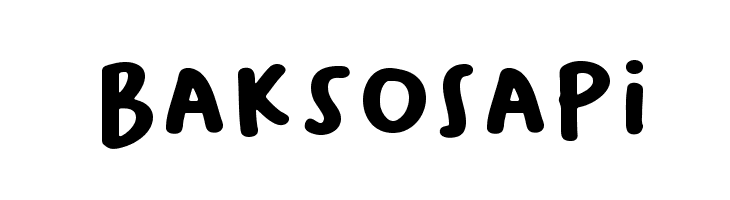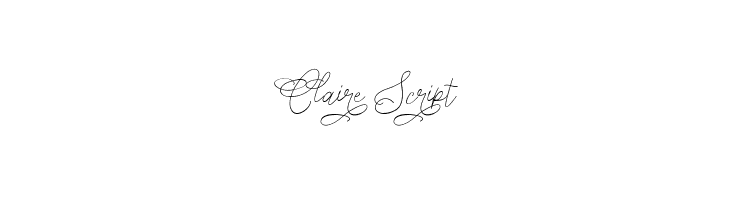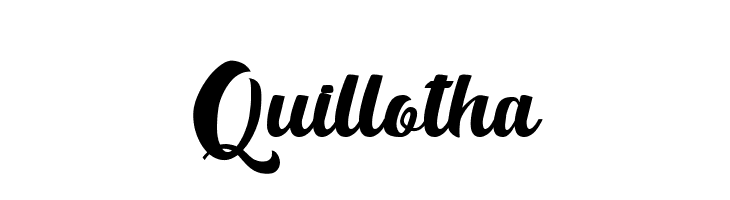
( Delafa Design - fontbundles.net/delafa )
A lively, handwritten script font with a playful and dynamic style.
( Flamde Studio - Nur Solikh - creativemarket.com/flamde/ )
A bold and expressive script font with flowing, connected letterforms and high contrast.
( Flamde Studio - Nur Solikh - creativemarket.com/flamde/ )
A bold, expressive script font with flowing, connected letterforms.
( Héctor Castillo )
A playful, casual handwritten font with rounded, slightly irregular letterforms.
( James Barnardo )
A bold, decorative font with a vintage 1920s flair.
( K-Type - Keith Bates - www.k-type.com/ )
A pixelated, grid-based font with a retro digital display aesthetic.
( Locomotype - Arwan Sutanto - www.locomotype.com )
A playful, bold font with a hand-drawn, rounded style.
( Mas Anis Studio - Naufal Anis - creativemarket.com/naufalans?u=naufalans )
An elegant, flowing script font with delicate, calligraphic lines.
( Pizzadude - Jakob Fischer - www.pizzadude.dk/ )
A bold, stencil-style font with a rugged, distressed texture.
( Pizzadude - Jakob Fischer - www.pizzadude.dk/ )
A bold, brush-stroke style font with a hand-painted, artistic feel.